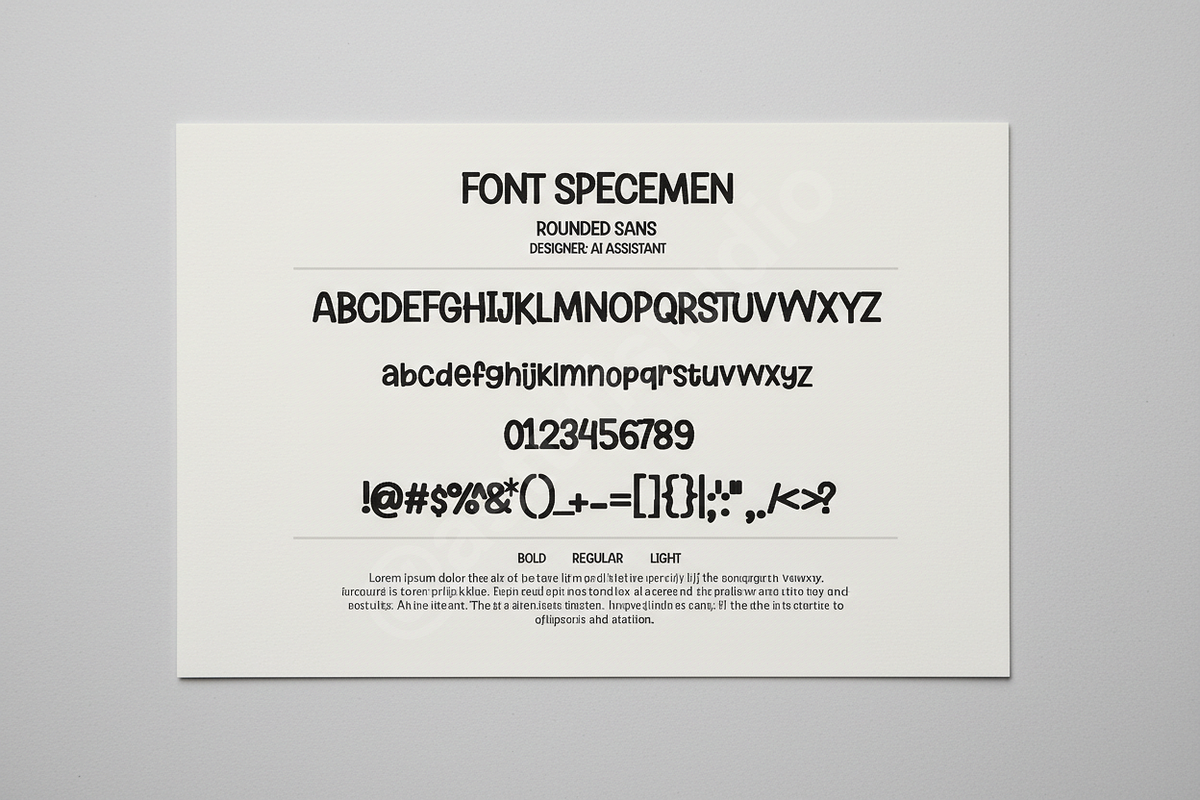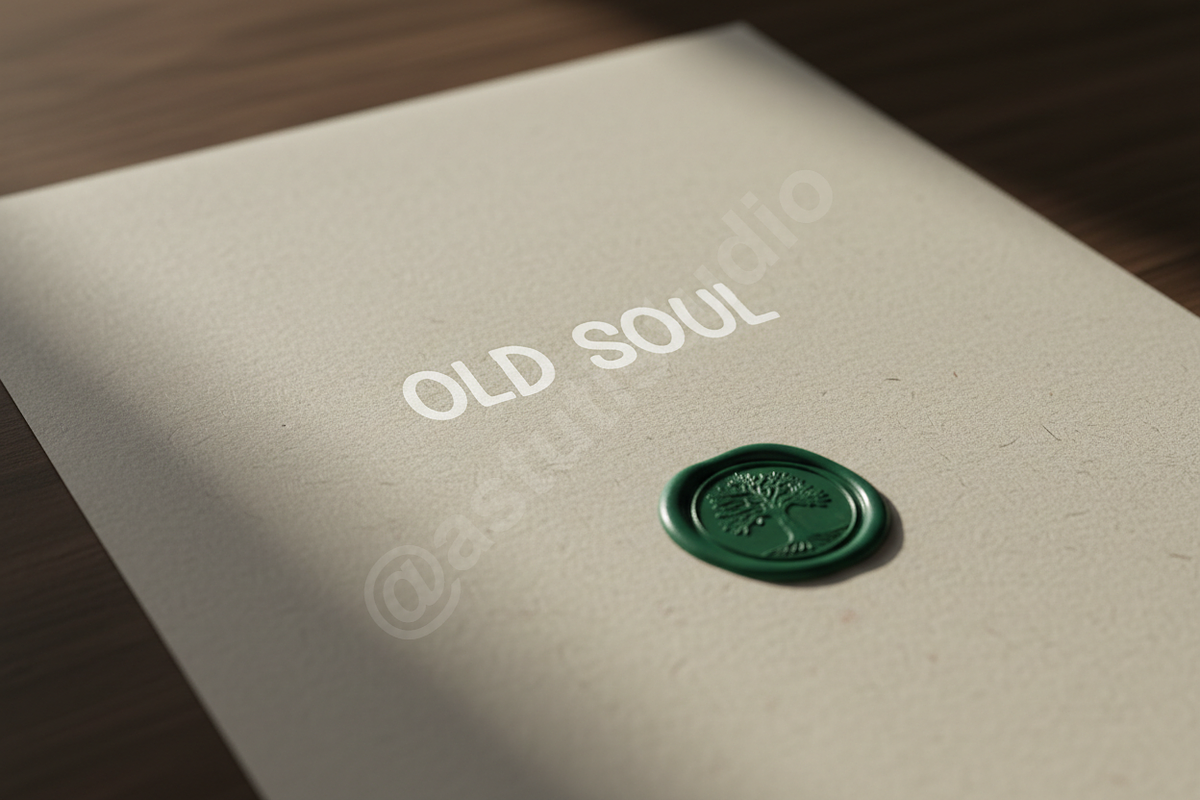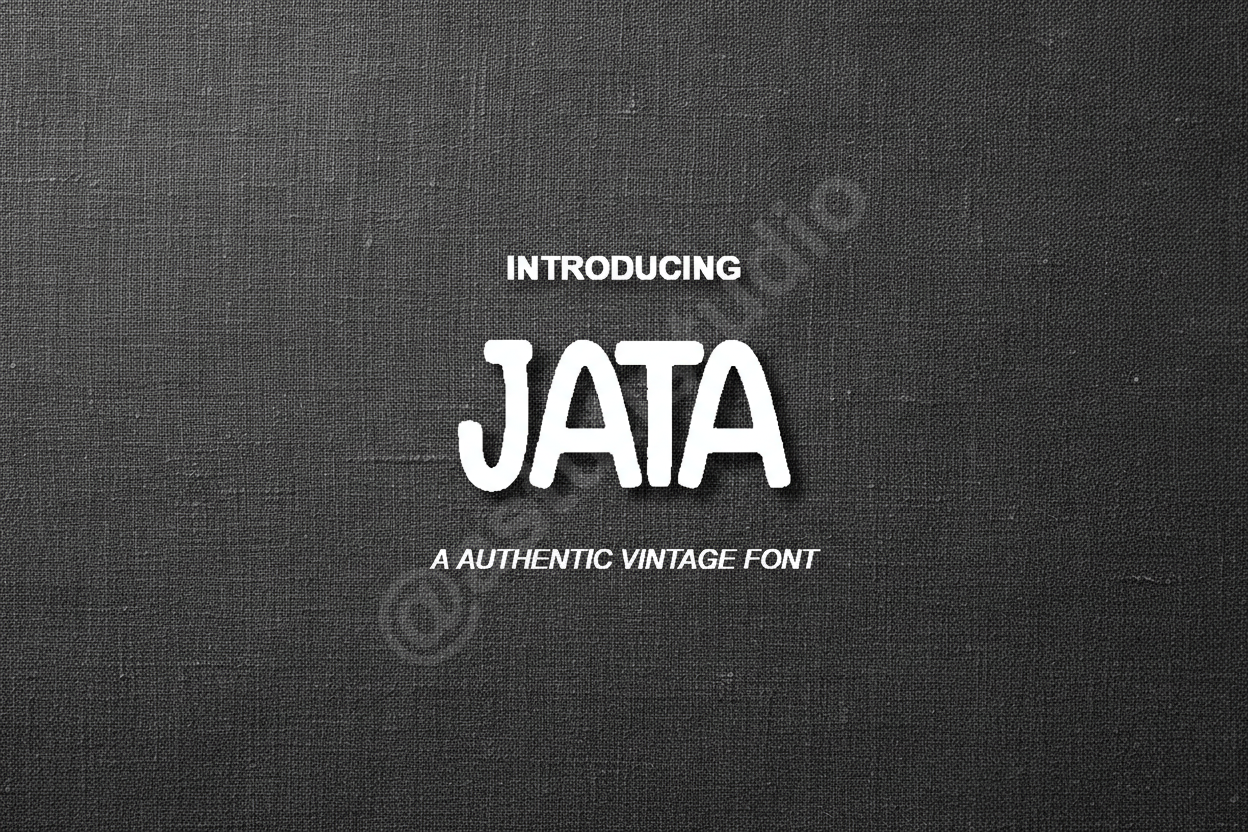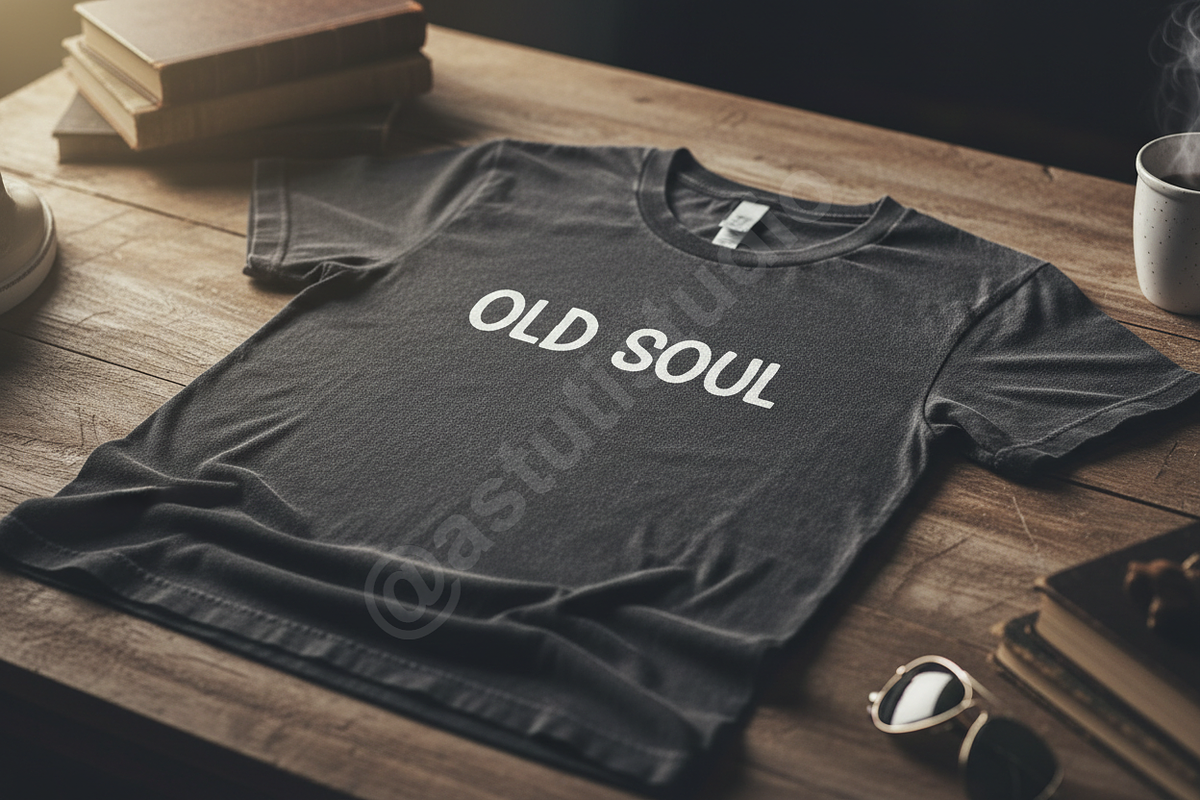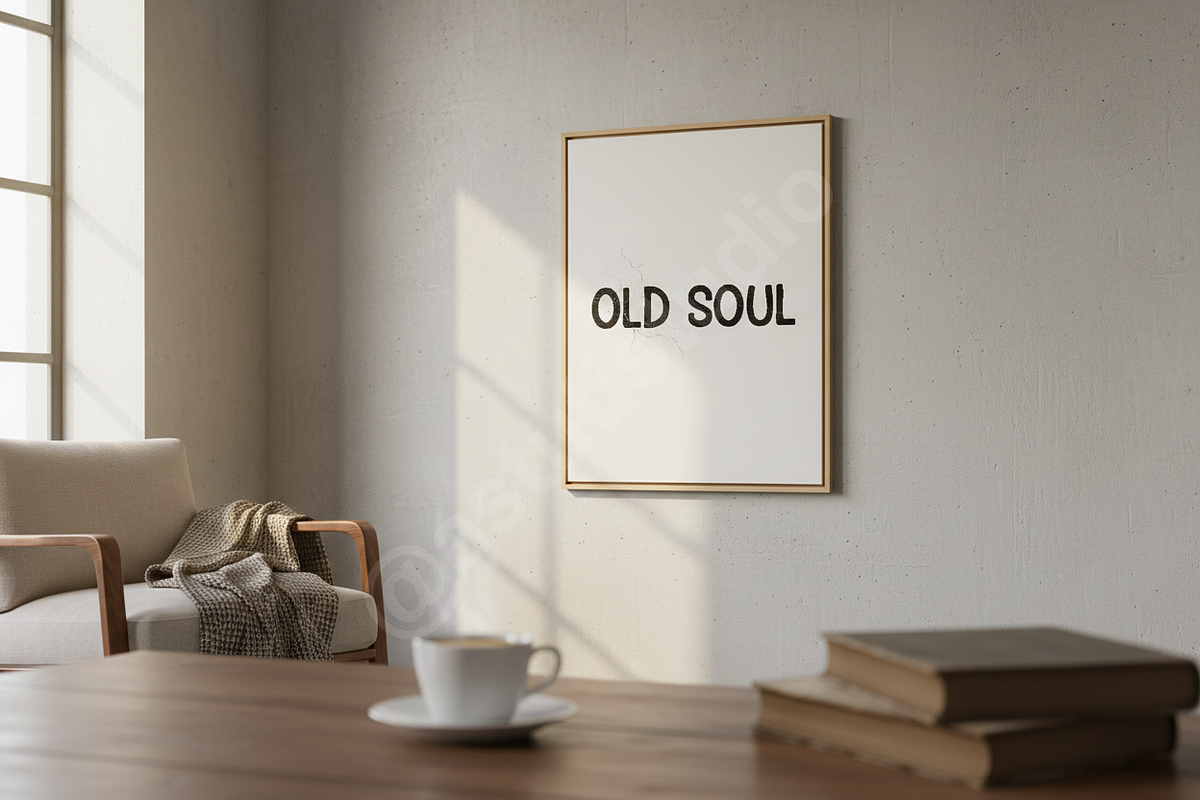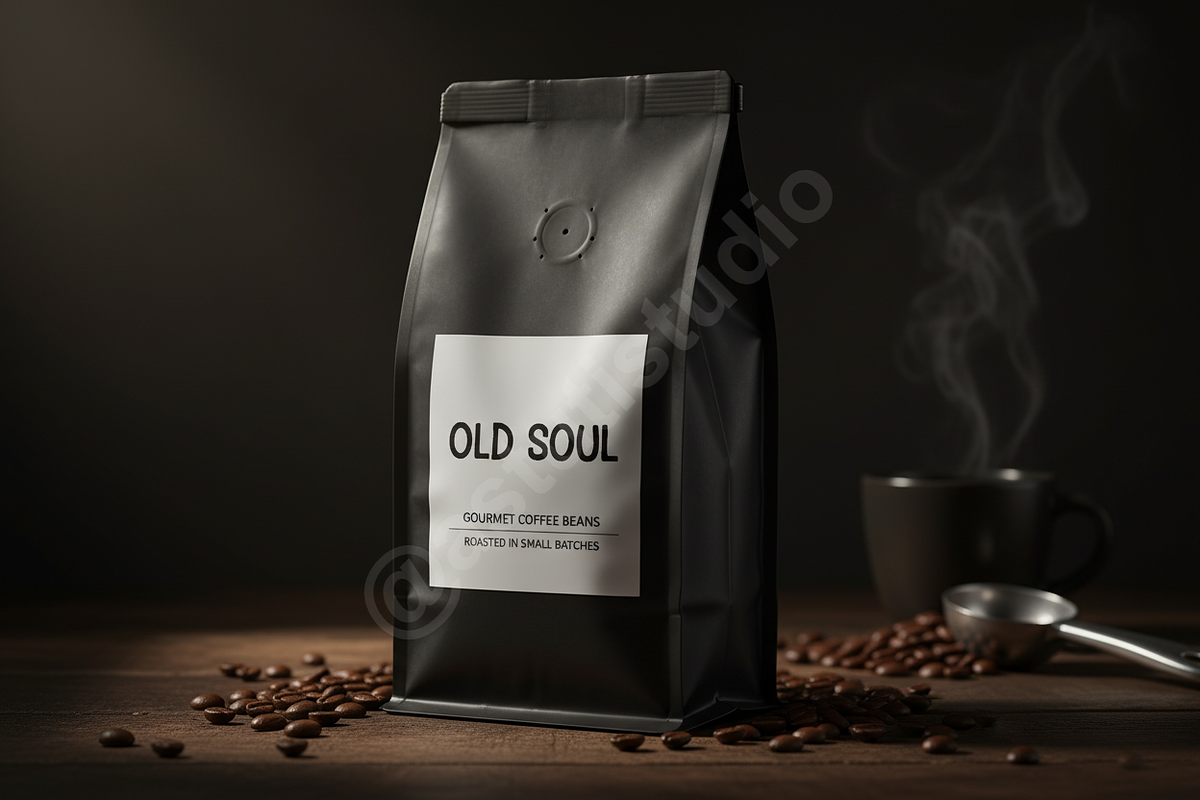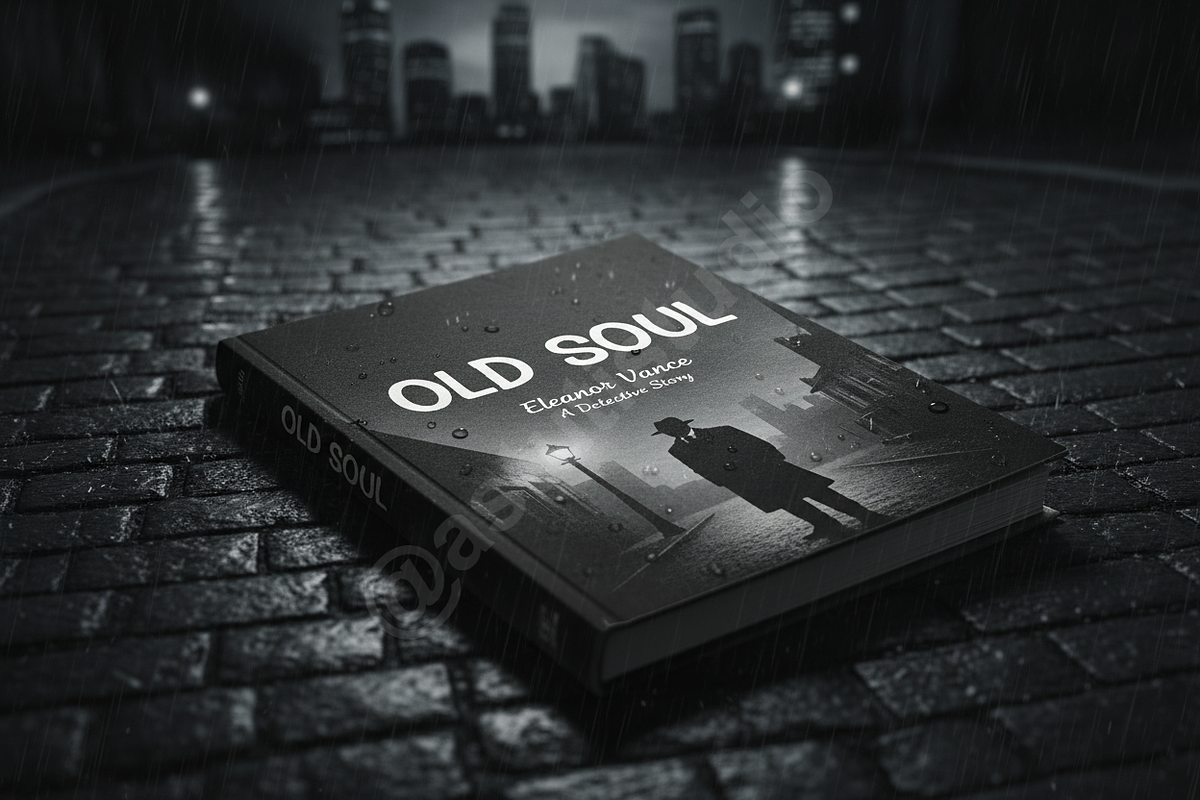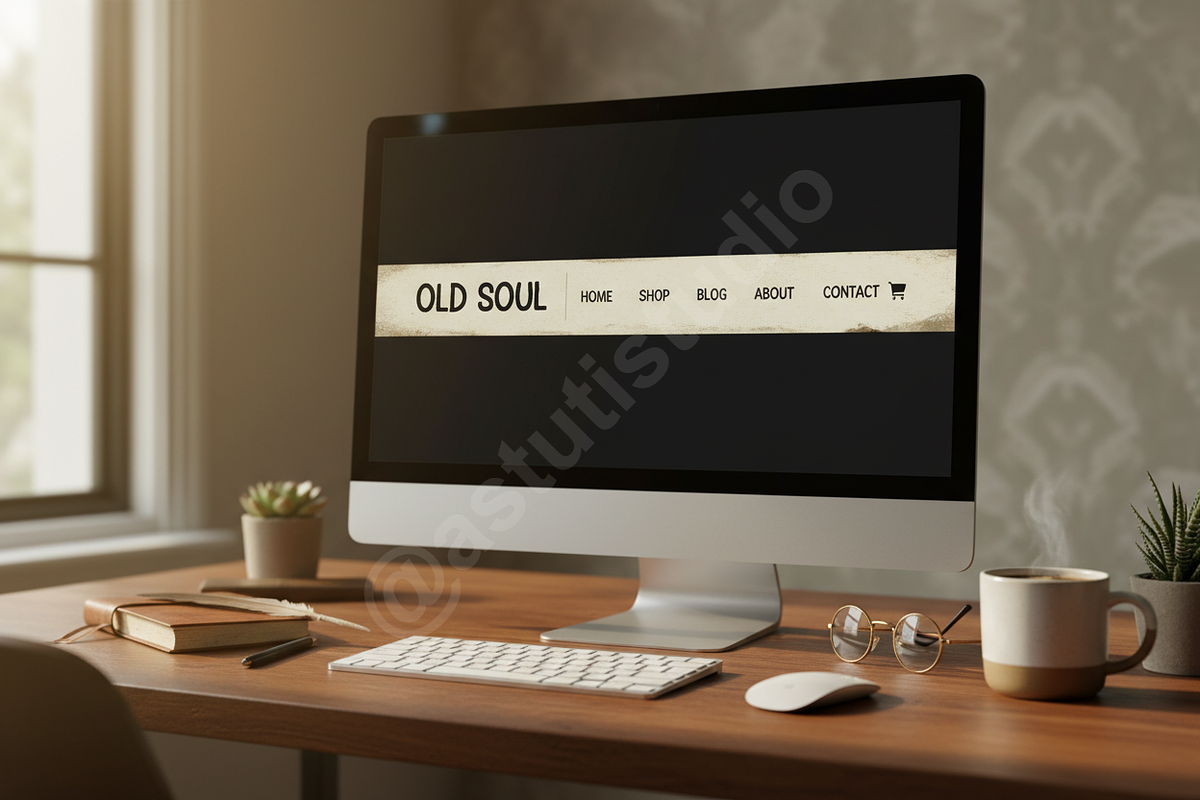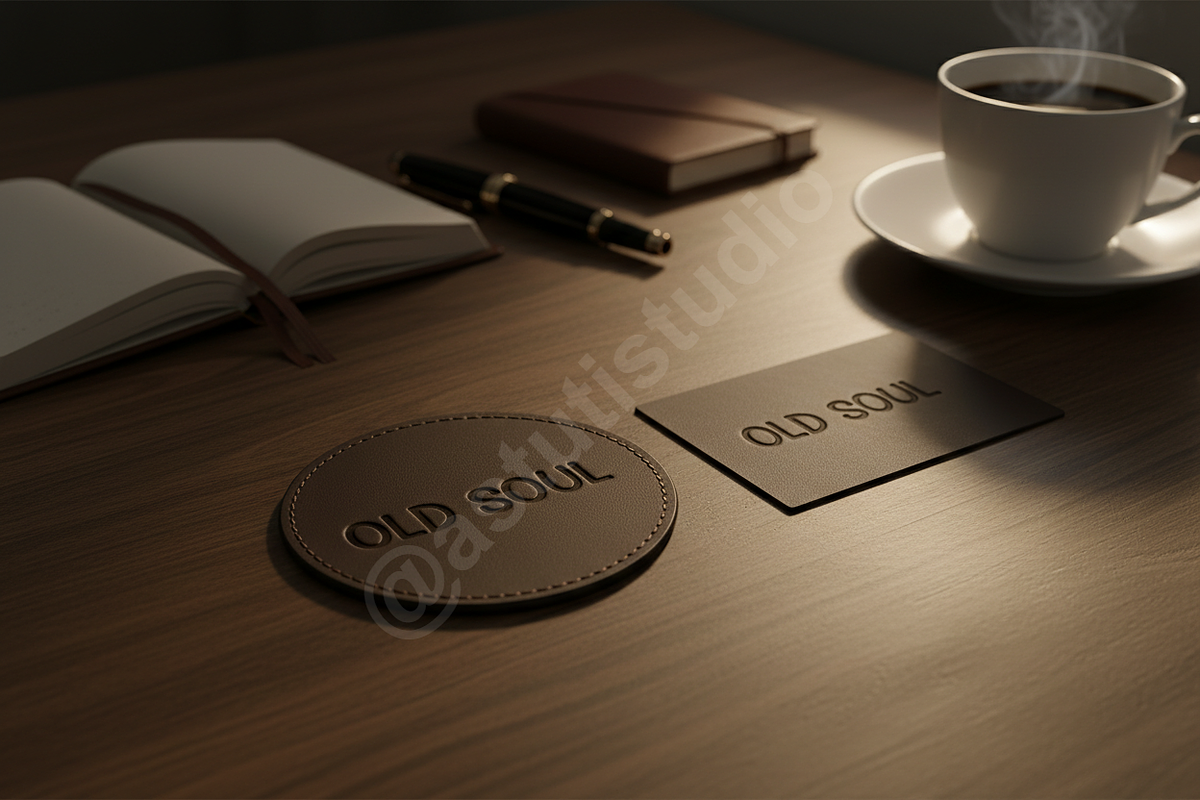
Jata - Elegant Modern Serif Typeface
Introducing Jata, a refined and high-contrast serif typeface designed for the discerning creator. Inspired by the quiet confidence of high-fashion editorial design, Jata balances contemporary proportions with timeless sophistication. It is the definitive choice for designers looking to elevate luxury branding, premium packaging, and sleek social media layouts with an air of exclusivity.
- Elegant high-contrast strokes for a premium feel
- Extensive ligature set for unique custom-look typography
- Stylistic alternates to enhance creative flexibility
- Precision kerning for professional-grade editorial layouts
- Clean, legible outlines suitable for both print and digital